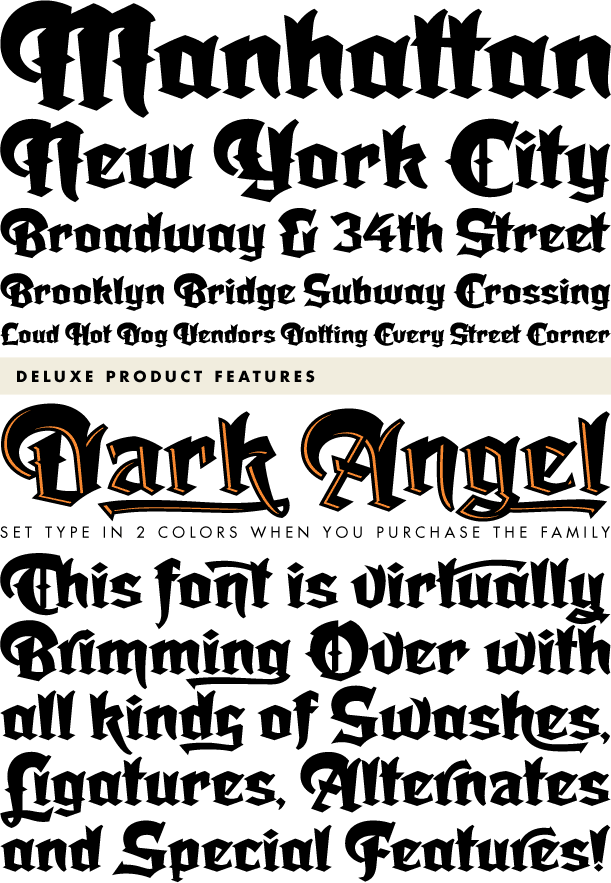
Dark Angel
About Dark Angel
Dark Angel is the first completely new take on the traditional ?blackletter? font style seen in decades. It began its journey towards the light years ago when this style was born as a sktech for a new logo for the California Angels baseball team (renamed…